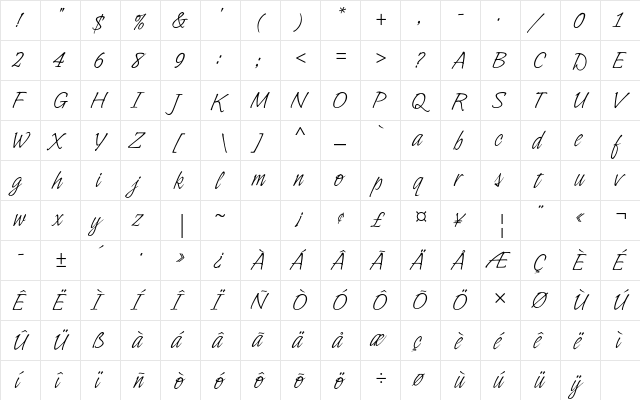
Indy Italic Std Regular
| Designer | Charles Hughes |
Design Context for Indy Italic Std Typeface
Indy Italic Std takes a measured approach to typography — its balanced proportions and neutral character make it a reliable workhorse for both digital and print work. The slanted form adds forward momentum and visual energy.